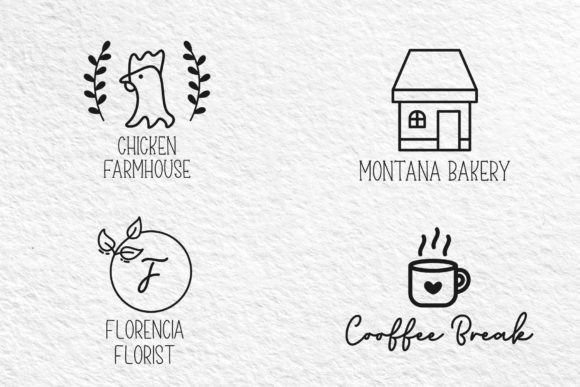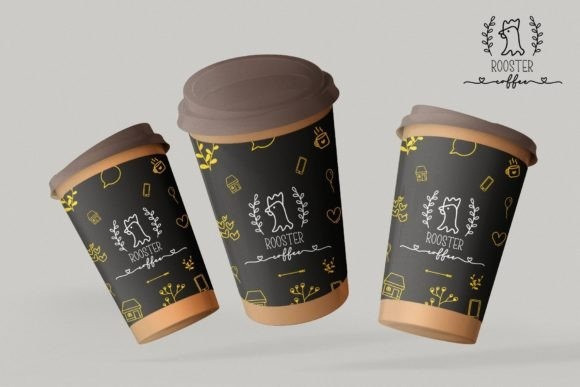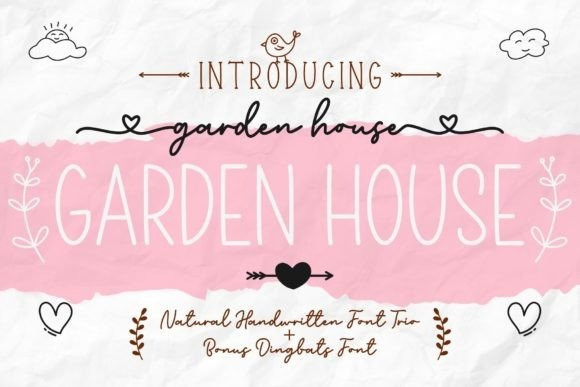
Garden House Font
Garden House Font is a fun font trio made up of a sans, serif, and signature, all designed to work well together! Add it to your most creative ideas, and notice how it transforms them into authentic pieces of art!